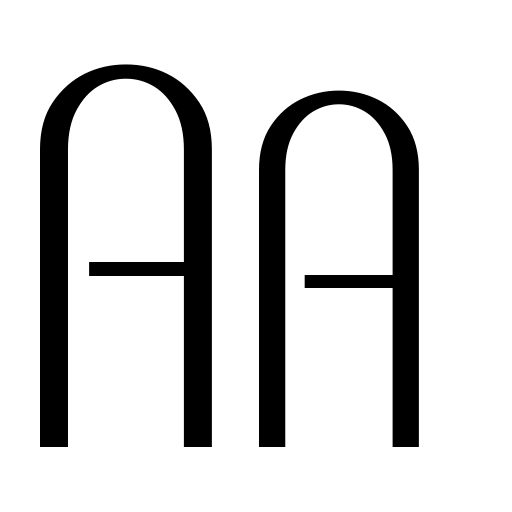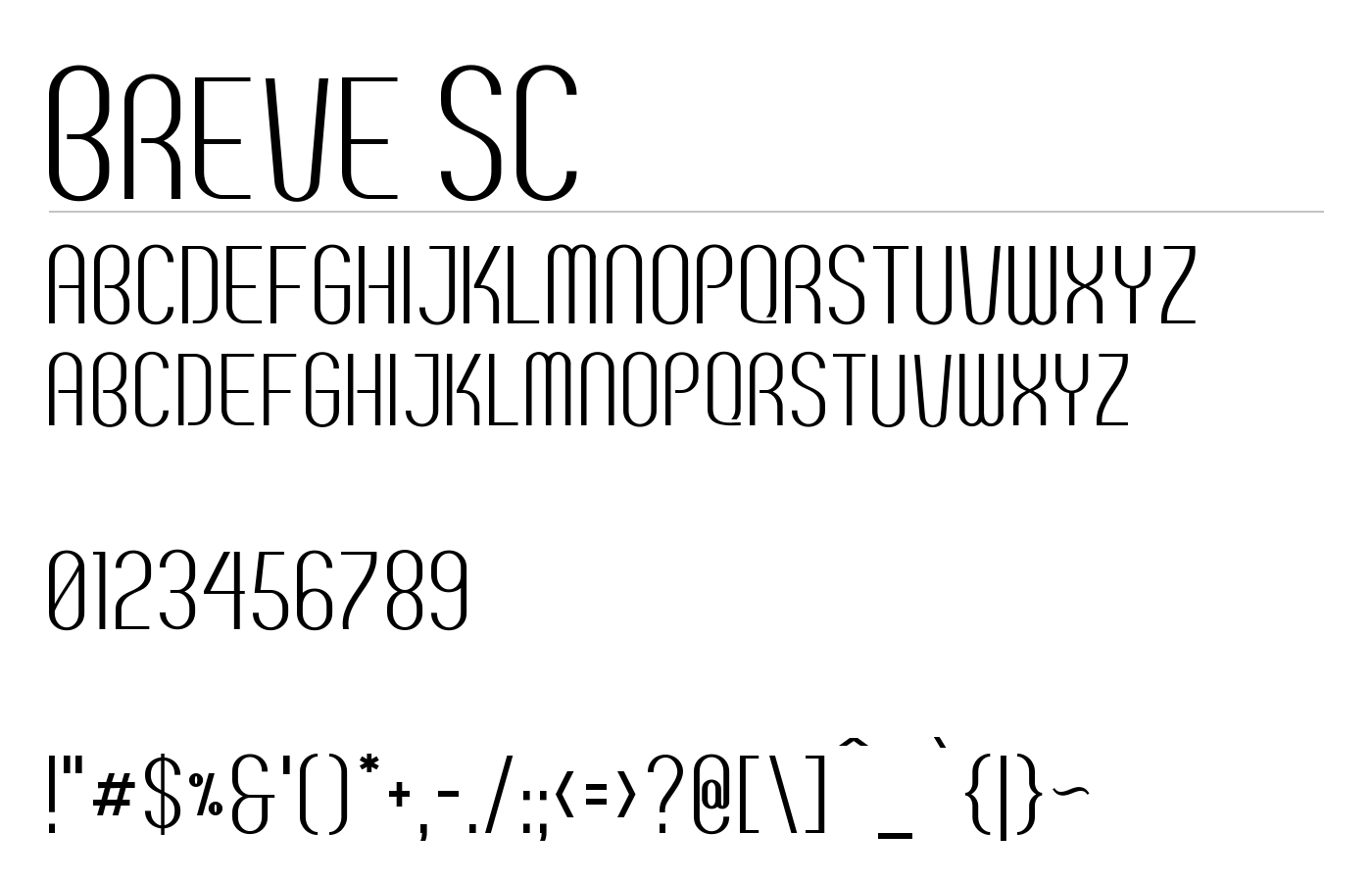
Breve SC is a sleek, narrow sans serif font featuring tall, slender letterforms with consistent stroke weight and minimal contrast. Its clean geometry and slightly rounded edges give it a modern, elegant feel suitable for sophisticated branding, headlines, and editorial design where a stylish yet understated look is desired. This font works well for projects that need a contemporary, refined touch without sacrificing readability.
Breve SC Font
About Breve SC Font